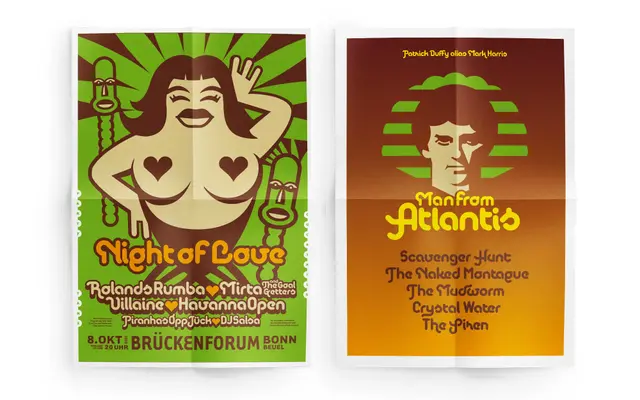
Bikini
A geometric display script by Felix Braden built on circles and arcs, with swashes, Roman capitals, two lowercase alternates per letter and over 60 ligatures.
Designed by Felix Braden and originally distributed via Volcanotype, Bikini uses a strict grid of circles and arcs as its underlying structure yet projects a loose, carefree character through expressive letterforms and extravagant details. The font ships with standard ligatures, nearly 50 discretionary ligatures, stylistic alternates for every letter and Roman capital swashes, giving designers considerable room to vary word-level compositions. Aimed at logotypes, magazine headlines and short display texts where a psychedelic or retro-leisure tone is wanted.
Bikini is a display script built on a matrix of circles and arcs, giving it a constructivist-geometric structure despite its fluid, handwritten appearance. Its expressive swashes, alternates and ligatures place it firmly in the display script category.